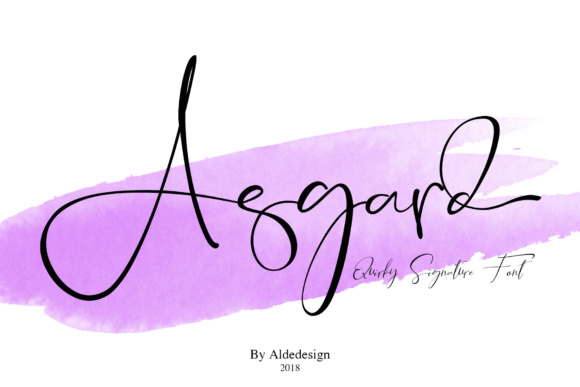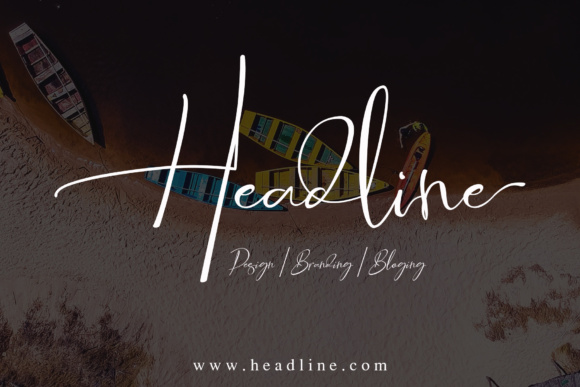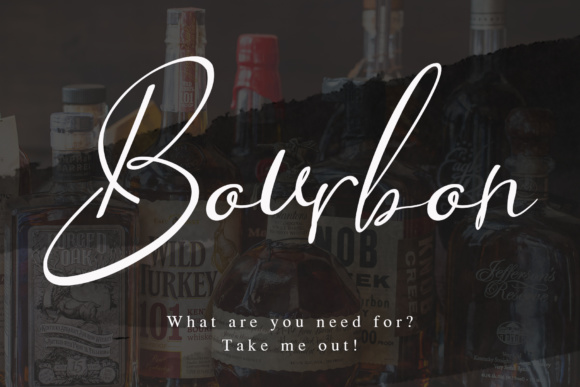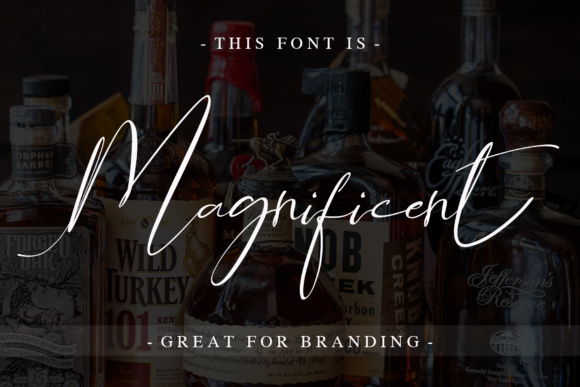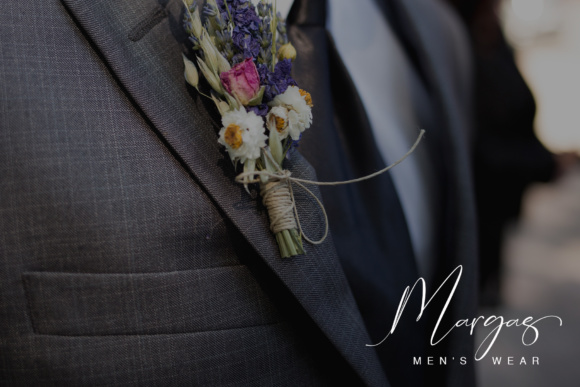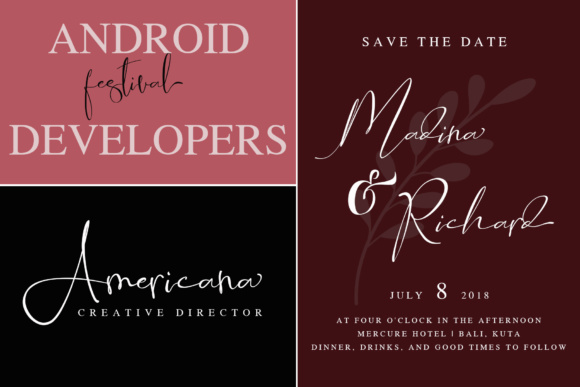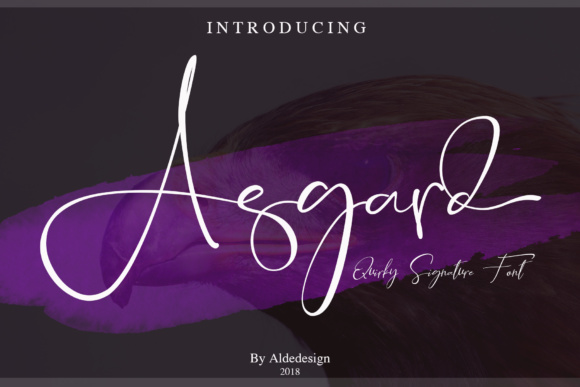
Introducing Asgard Font: Elevate Your Designs with Elegance and Sophistication
In the realm of typography, few fonts manage to capture the essence of luxury, elegance, and sophistication as effectively as Asgard Font. This stunning signature font is meticulously crafted to make your designs stand out, adding a touch of personal flair that sets them apart. Whether you’re working on displays, fashionable designs, or editorial projects, Asgard Font proves to be an exceptional choice, capable of transforming your creations with its unique charm.
The Essence of Asgard Font
Asgard Font is a script font that embodies the beauty of handwritten typography, offering a fluid and dynamic look that is both stylish and versatile. Its intricate strokes and elegant ligatures are designed to mimic the finesse of calligraphy, making it an ideal selection for projects that demand a high level of sophistication. From fashion magazines and luxury brand advertisements to personal stationery and digital interfaces, Asgard Font brings a level of refinement that is hard to match.
Perfect for Displays and Fashionable Designs
One of the standout features of Asgard Font is its exceptional performance in display settings. Its bold and captivating presence makes it perfect for headlines, titles, and any prominent text that needs to grab attention. For designers working on fashion-related projects, Asgard Font offers a stylish and contemporary look that aligns well with current trends. Whether it’s for a fashion blog, an apparel brand, or a beauty product advertisement, this font ensures your text looks stylish and sophisticated.
Editorial Works and Beyond
Beyond its use in displays and fashionable designs, Asgard Font also excels in editorial works. Its readability and aesthetic appeal make it suitable for use in magazines, newspapers, and digital publications. The font’s ability to convey a sense of elegance and refinement can enhance the overall reading experience, making your content more engaging and visually appealing. Moreover, Asgard Font’s versatility extends to various other applications, including event invitations, packaging designs, and website headers, providing a consistent and luxurious feel across different mediums.
Adding a Personal Touch to Your Projects
What sets Asgard Font apart is its ability to add a personal touch to your designs. In a world where digital content often feels impersonal, this font offers a way to inject a bit of character and personality into your projects. Its unique and artistic strokes can help convey the tone and mood of your message more effectively, making your designs feel more authentic and engaging. Whether you’re a designer looking to elevate your portfolio or a crafty individual working on personal projects, Asgard Font provides the tools to create something truly special.
Technical Aspects and Compatibility
In conclusion, Asgard Font is a versatile and elegant script font that can significantly enhance your designs. Its combination of luxury, sophistication, and personal charm makes it an excellent choice for a wide range of projects, from displays and fashionable designs to editorial works and personal crafts. With its technical compatibility and aesthetic appeal, Asgard Font is poised to become a go-to choice for designers and crafters looking to add a touch of elegance and sophistication to their creations. Explore the possibilities with Asgard Font and discover how it can transform your designs into stunning works of art.